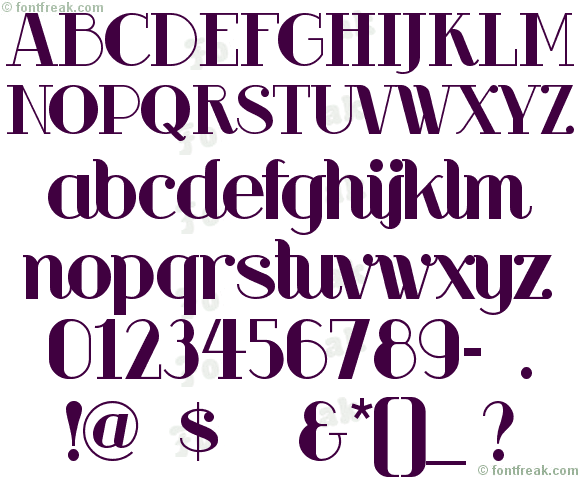
RiotSquad
About Riot Squad
Riot Squad, designed by Nick Curtis, is a striking display font that stands out with its bold and rebellious character. This freeware font embraces a unique aesthetic that combines modern flair with an edge, making it perfect for a variety of creative projects. The Riot Squad font features a distinct heavy stroke weight, providing a commanding presence that captures attention. Its slightly condensed letterforms and sharp angles contribute to a sense of urgency and dynamism, ensuring that any text set in this typeface makes a memorable impact. The spacing is meticulously crafted, allowing for clear readability while maintaining a visually appealing layout.
Ideal for use in high-energy environments, Riot Squad shines in applications such as music festival promotional materials, skate shop branding, and urban streetwear designs. It also excels in creating eye-catching movie posters and album covers, where it can convey the vibrancy and intensity of the content. Additionally, small business owners looking to inject personality into their restaurant menus or special event flyers will find this font an excellent choice. The target audience for Riot Squad includes graphic designers, content creators, and small business owners who appreciate the boldness and versatility of a unique typeface.
What sets the Riot Squad font apart is its ability to effortlessly blend a contemporary aesthetic with a rebellious spirit, making it a perfect choice for projects that aim to break conventions and stand out from the crowd. The Riot Squad font free download option allows users to incorporate this distinctive typeface into their work without financial barriers, promoting creativity and innovation across various mediums. Embrace the energy of Riot Squad and elevate your designs with this exceptional font.